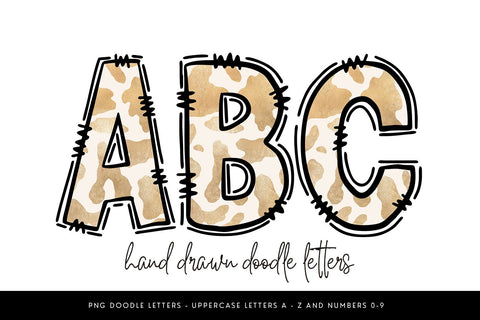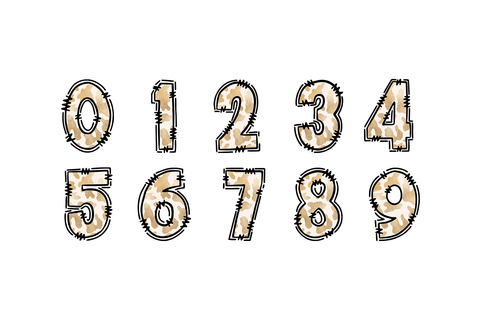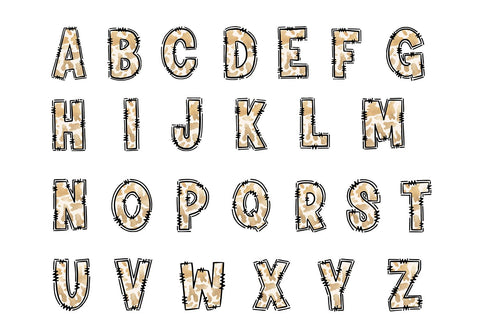
Cow Print Doodle Alphabet PNG, Hand Drawn Western Font
Bring a little yeehaw to your designs with this hand-drawn cow print doodle alphabet! Each PNG letter features a warm brown cowhide pattern with playful sketch-style outlines—perfect for western crafts, rodeo party printables, barn baby showers, or farmhouse decor. Includes uppercase A–Z and numbers 0–9 in high-res PNG format, ready to use for sublimation or digital projects.
✦ Uppercase letters A-Z
✦ Numbers 0 - 9